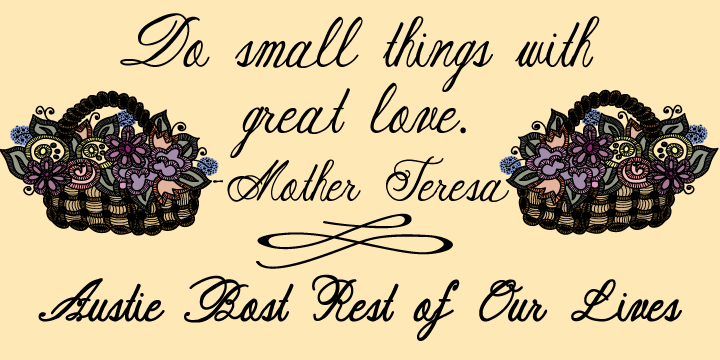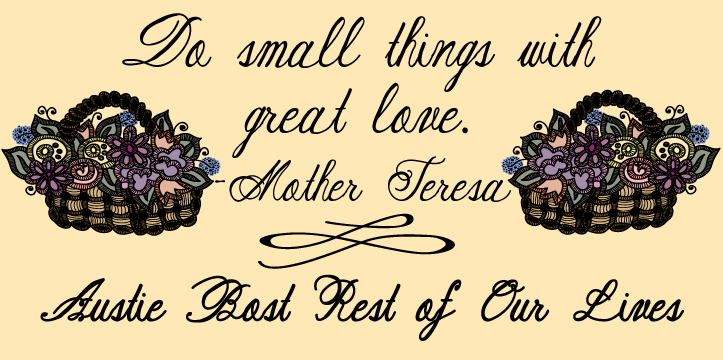
Austie Bost Rest of Our Lives is a script font published by Austie Bost Fonts.
Austie Bost Rest of Our Lives is flourishy, fancy, but still has the feel of a handdrawn font. It is inspired by old genealogy records, and is dedicated to my cute mom who gave me the idea!